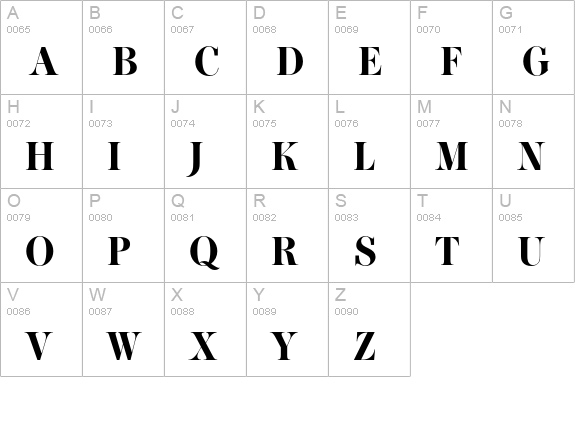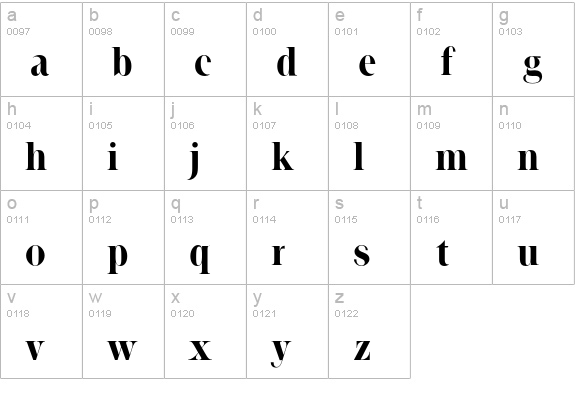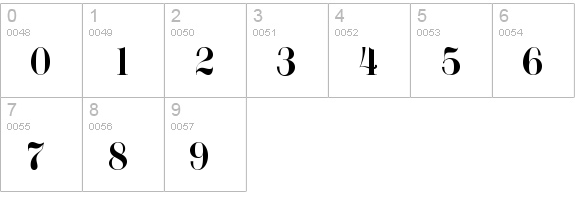
ITC Tom's Roman font is a timeless and elegant typeface that exudes sophistication and charm. Its classic serifs and graceful curves make it perfect for any project that requires a touch of refinement and professionalism. This font is inspired by the traditional Roman typefaces, known for their clarity and readability. What makes ITC Tom's Roman font even more appealing is the fact that it is available for free. Yes, you read that right - this stunning font can be downloaded at no cost from FontsMarket.com. Whether you're a graphic designer, a typographer, or simply someone who appreciates beautiful typography, this font is a must-have in your collection. With its versatile nature, ITC Tom's Roman font can be used in a variety of contexts. From elegant wedding invitations to sophisticated corporate branding, this font adds a touch of class to any design. Its clean lines and balanced proportions make it a pleasure to read, ensuring that your message is delivered with clarity and style. Not only does ITC Tom's Roman font excel in print, but it also shines in digital media. Its legibility on screens ensures that your website or digital publication captures the attention of your audience. Whether you're designing a logo, creating a brochure, or crafting an eye-catching headline, this font will elevate your work to new heights. Downloading ITC Tom's Roman font is a breeze. Simply head over to FontsMarket.com and find this font in their extensive collection. With just a few clicks, you can have this elegant and versatile typeface at your fingertips, ready to transform your designs into works of art. So why wait? Add ITC Tom's Roman font to your font library today and unlock a world of design possibilities. Whether you're a seasoned designer or a beginner exploring the world of typography, this font will inspire and delight you with its timeless beauty. Best of all, it's free! Download ITC Tom's Roman font at FontsMarket.com and let your creativity soar.